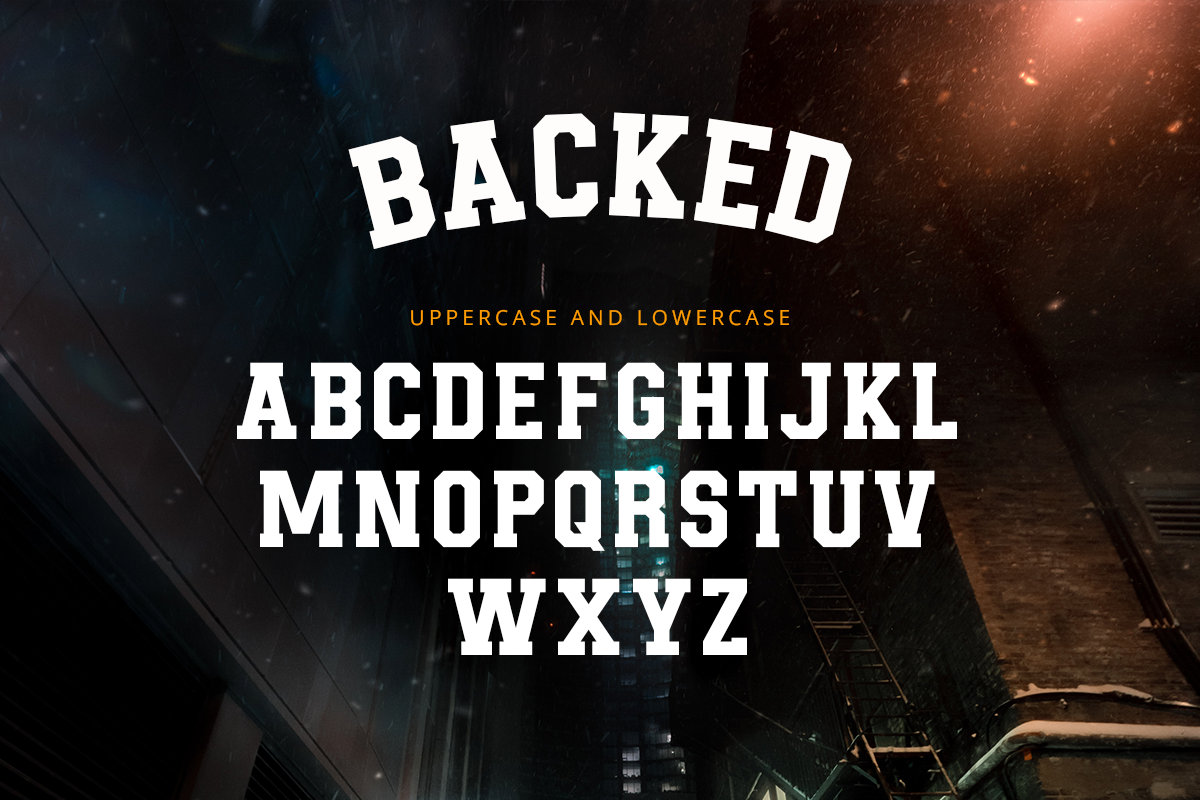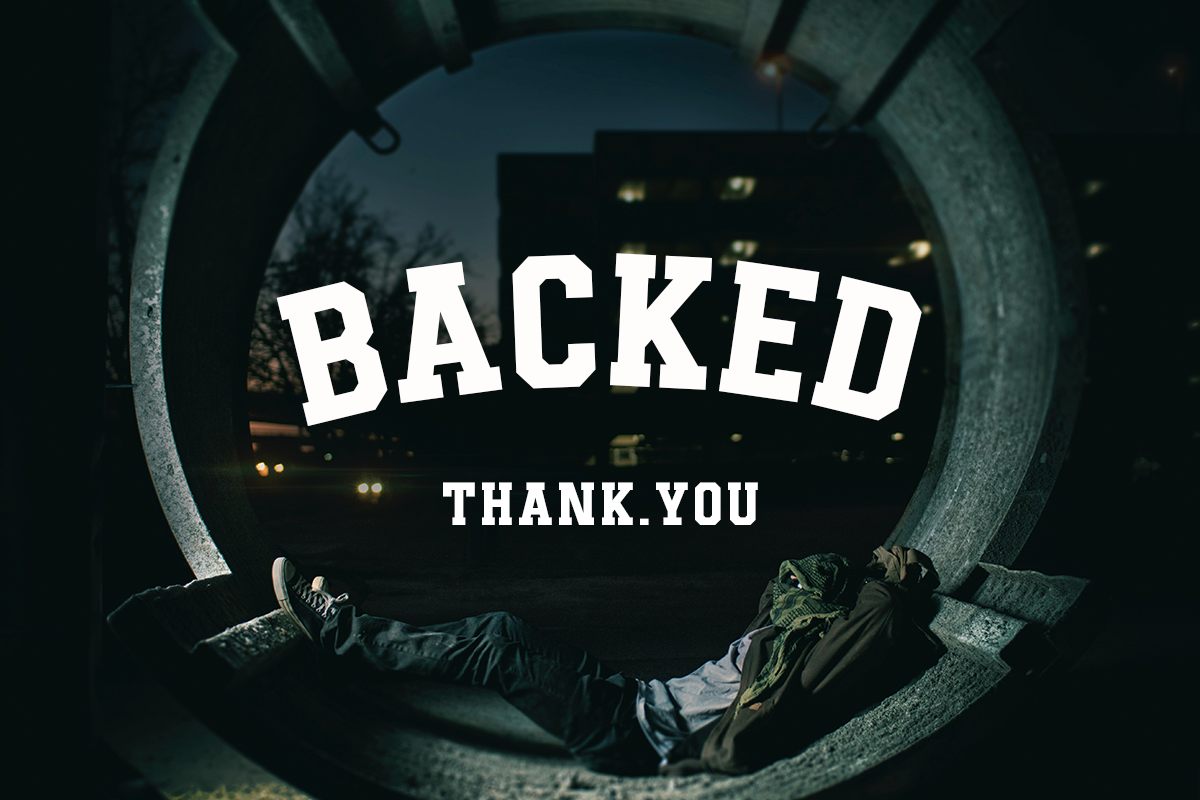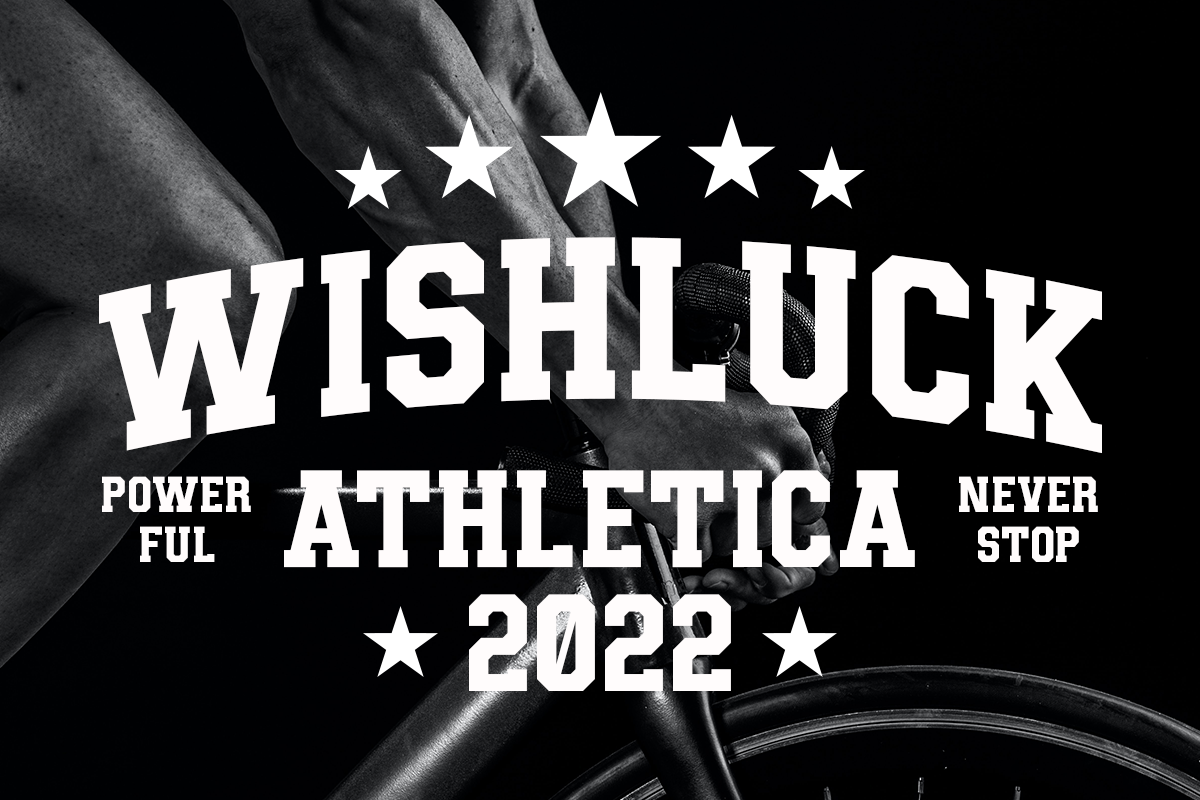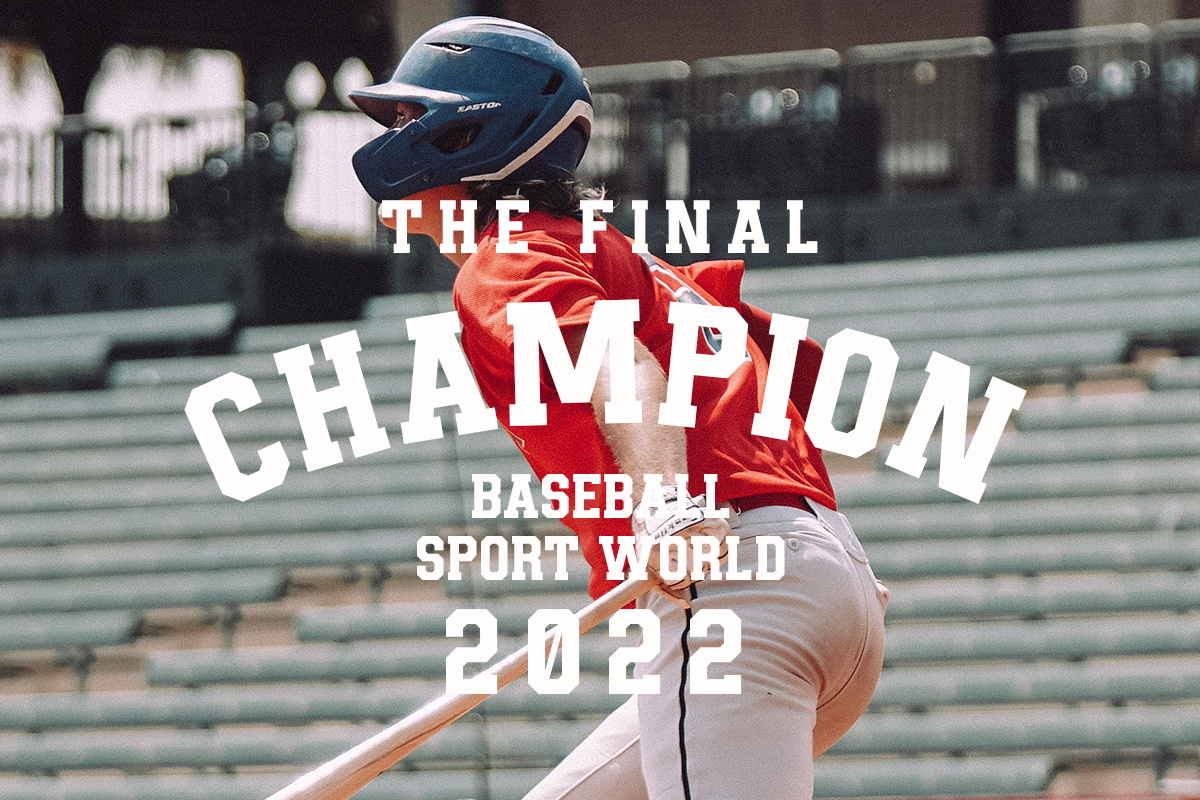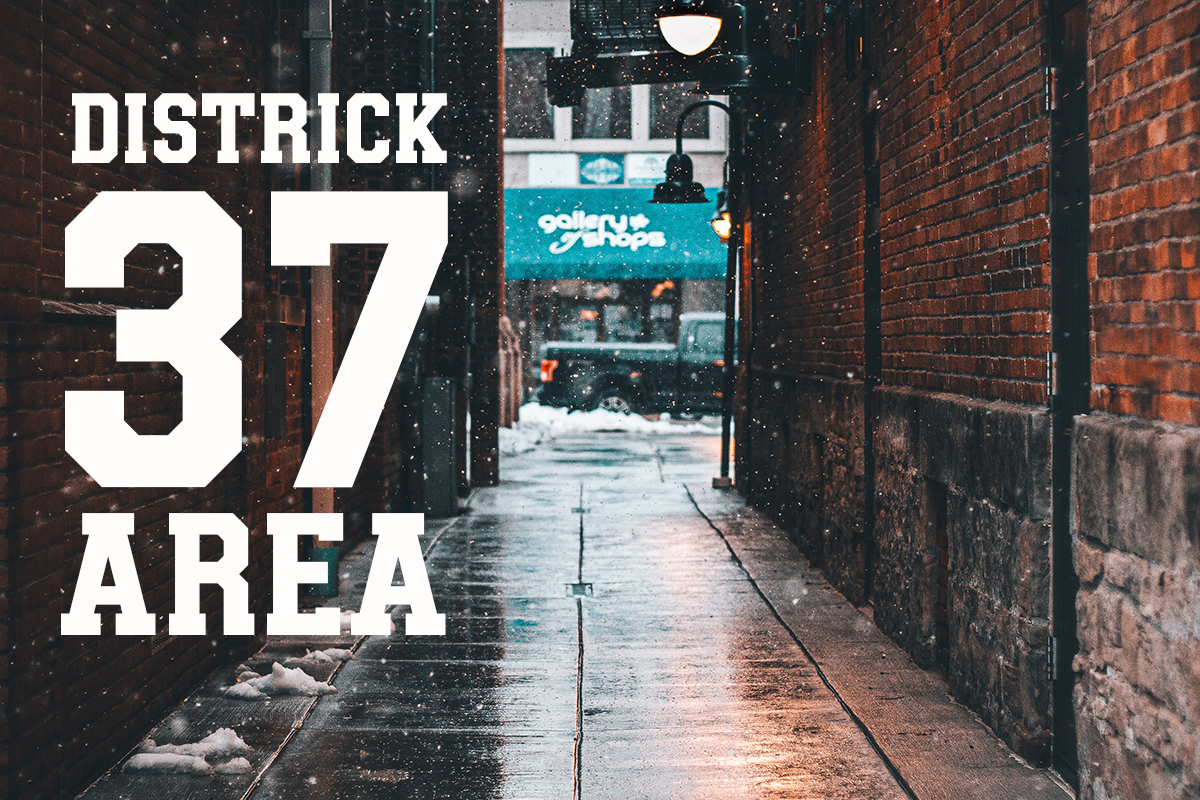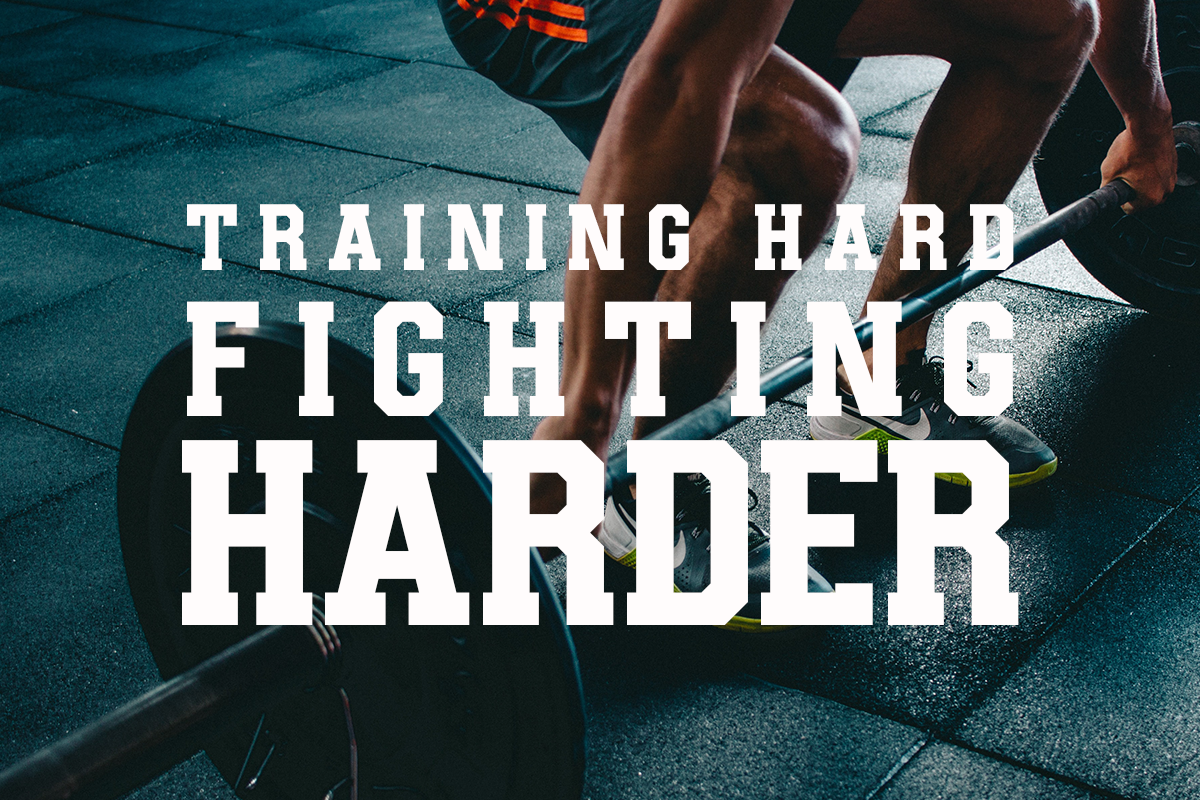
Backed Modern Varsity Font is a font whose appearance looks familiar to people who like varsity fonts. This font comes with a simple and standard look. Not accompanied by any curves or additions, he is still charming and able to seduce every pair of eyes that see him. This font looked clear, and this font is legible. Backed Modern Varsity Font is the best font applied to event titles that use a sports theme, such as basketball and baseball. This font can contribute to building a good impression on everyone who sees it. Backed Modern Varsity font can be used on match shirts, merchandise, stickers, and other clothing item design. This font is a modern type of font that is easy to combine with various things. Apart from the things mentioned above, the Backed Modern Varsity font can be used to write on brochures containing promotions and announcements of sporting events. This strong font character can make people know the brochure's contents by looking at the title and the font used. Science books containing theories about sports and their various histories can also use this typeface to apply to covers. Backed modern varsity font can also be used as a poster containing motivational quotes at sports venues and matches. Our Espot & Futuristic fonts collection is compatible to use as; Figma fonts, Canva fonts, Freepik Fonts, and Adobe Fonts. They also work as Windows Fonts, and Apple Fonts. For your social media needs, you can use and install fonts in our collection of Espot & Futuristic font types to use as Instagram Fonts, Facebook Fonts, and Twitter Fonts.